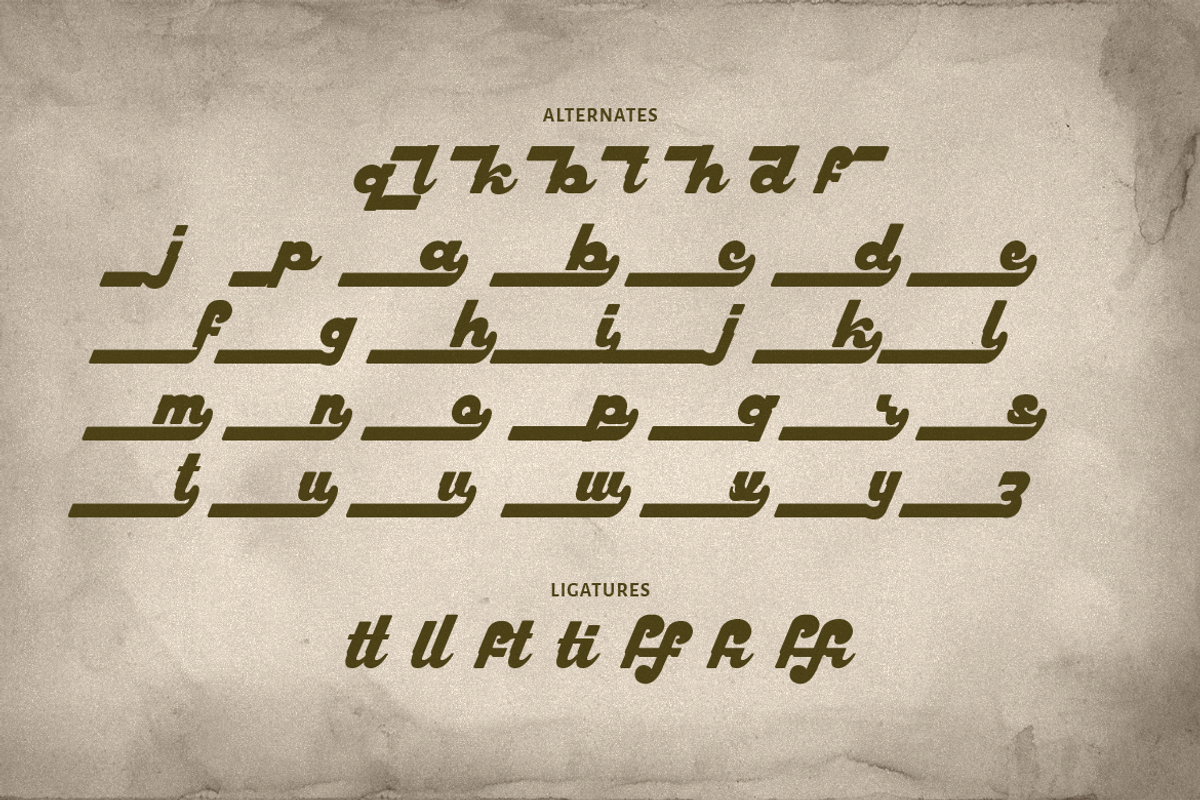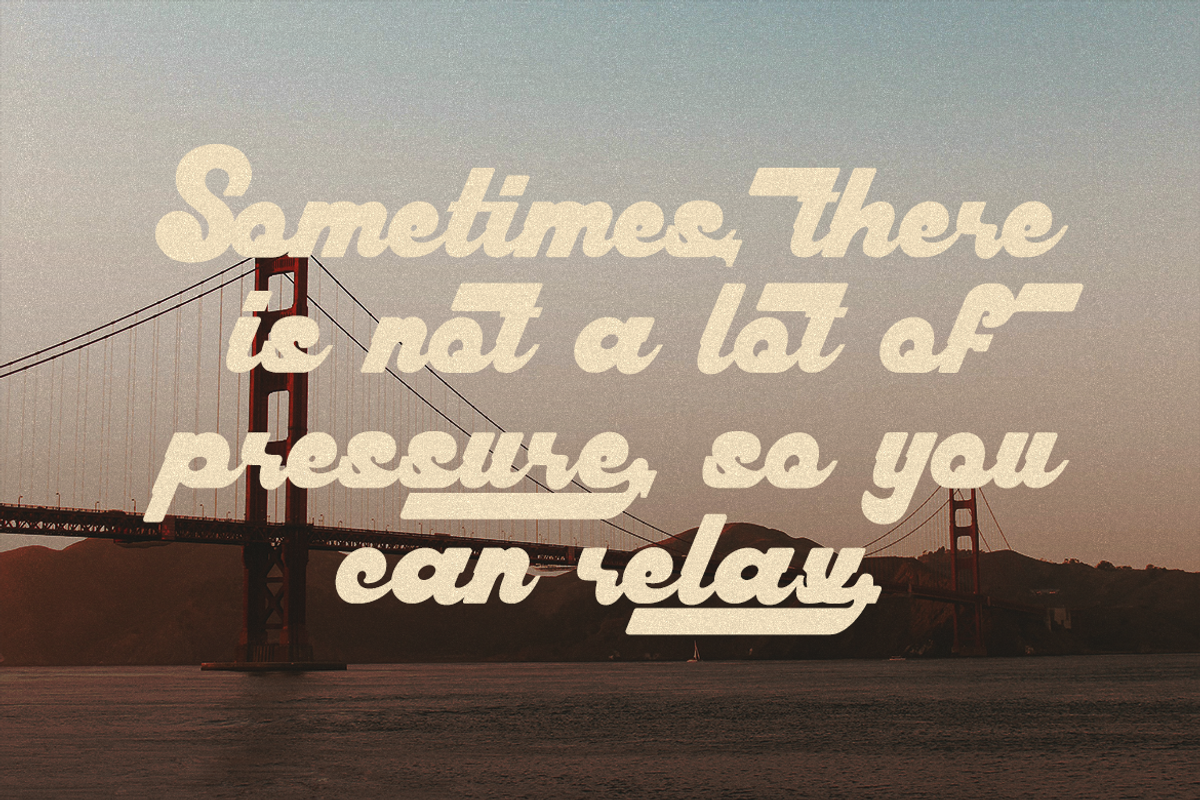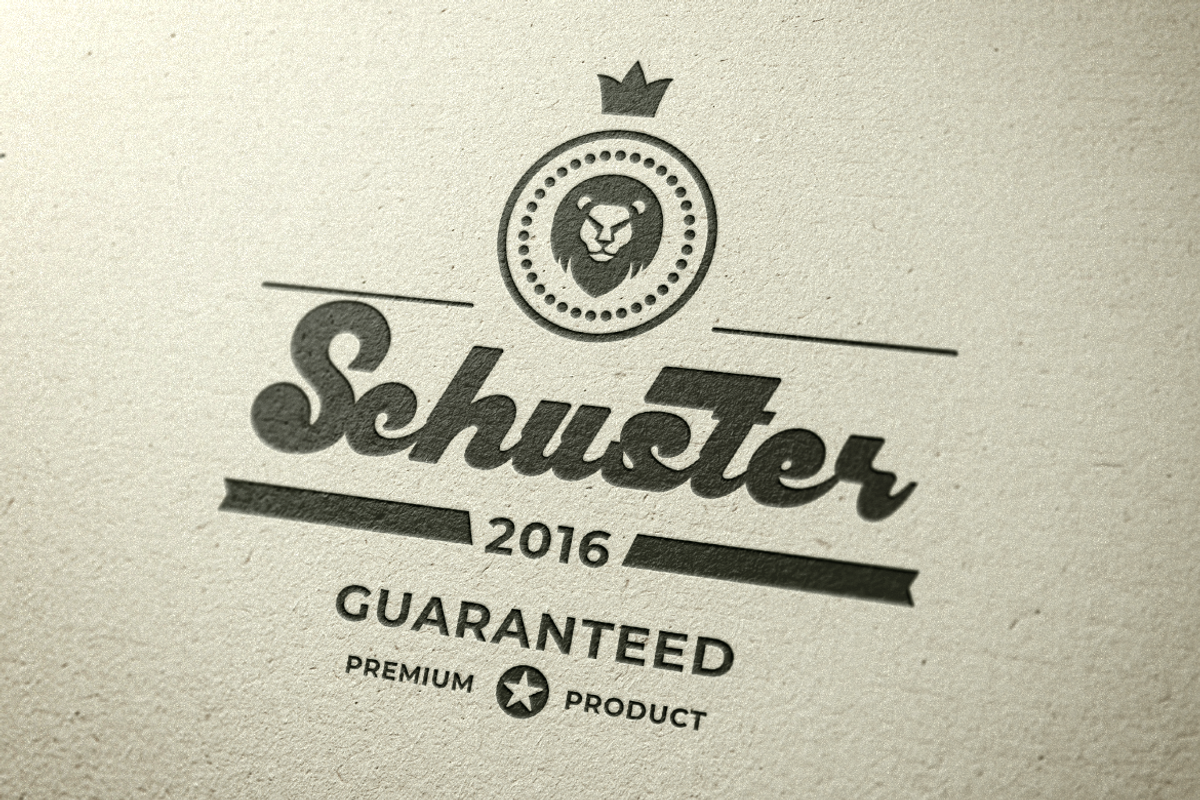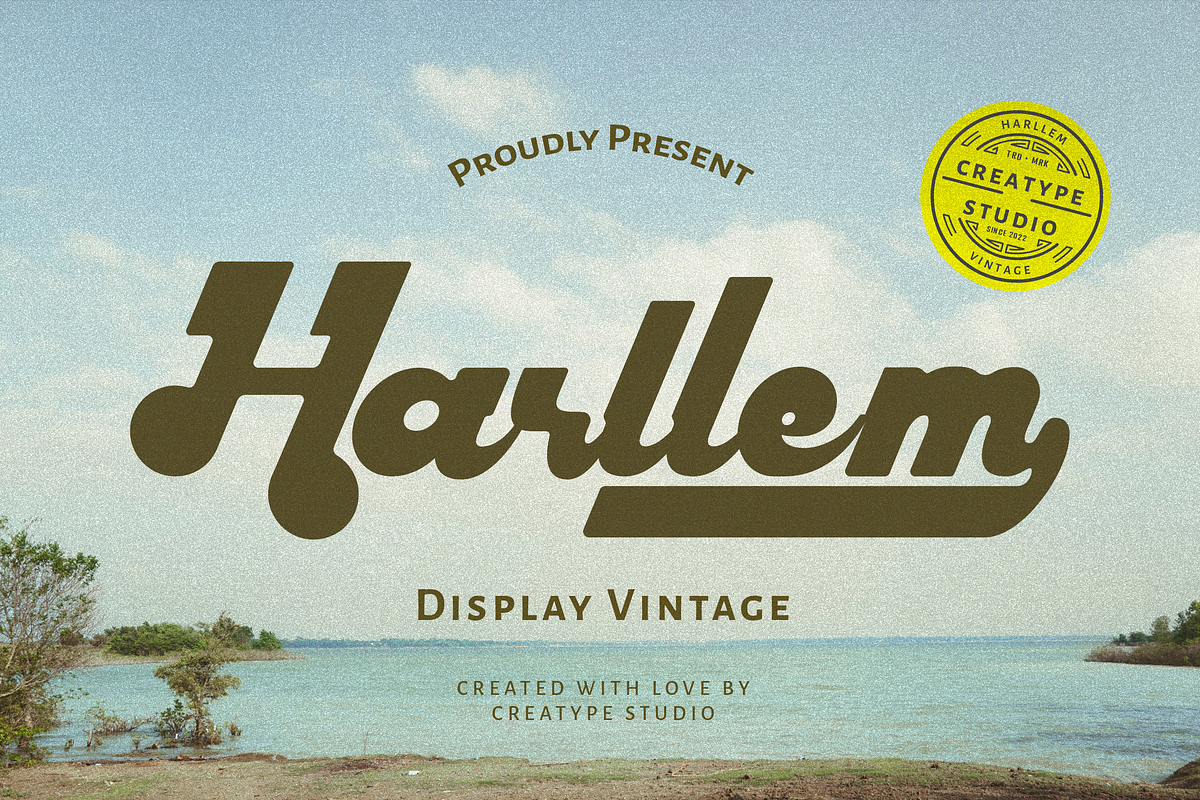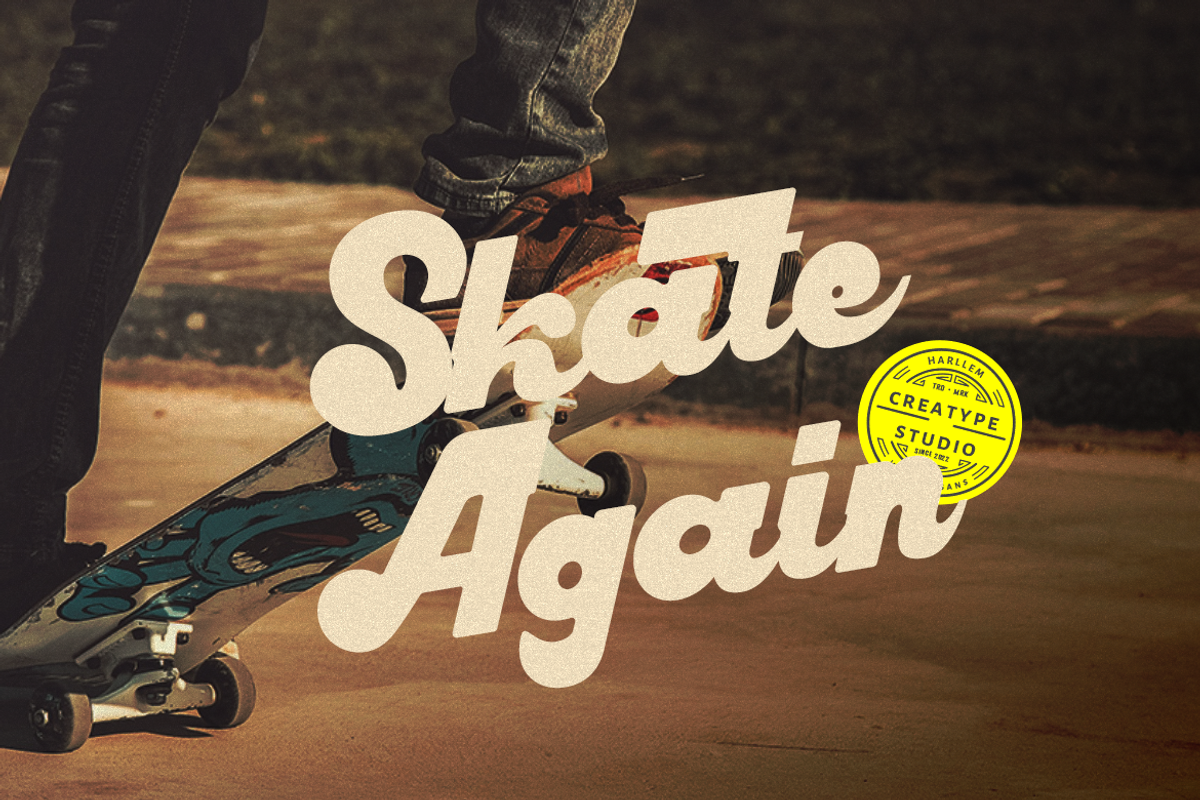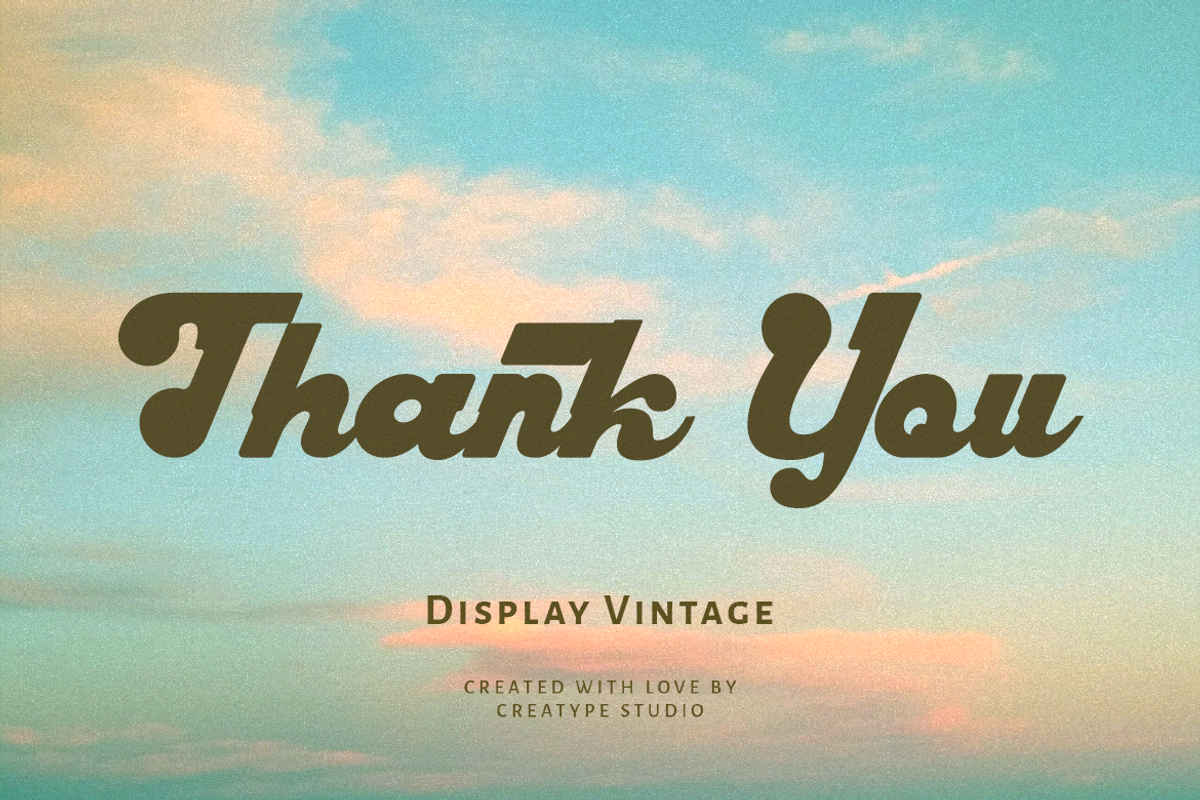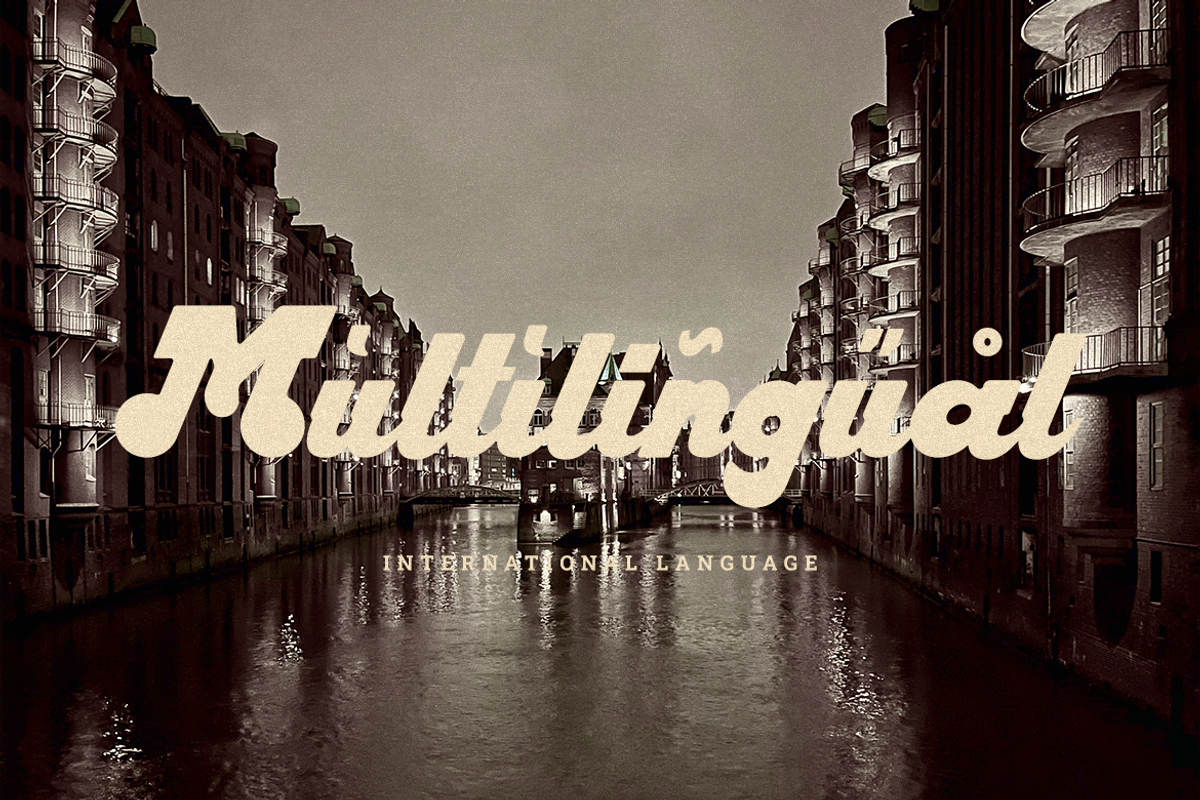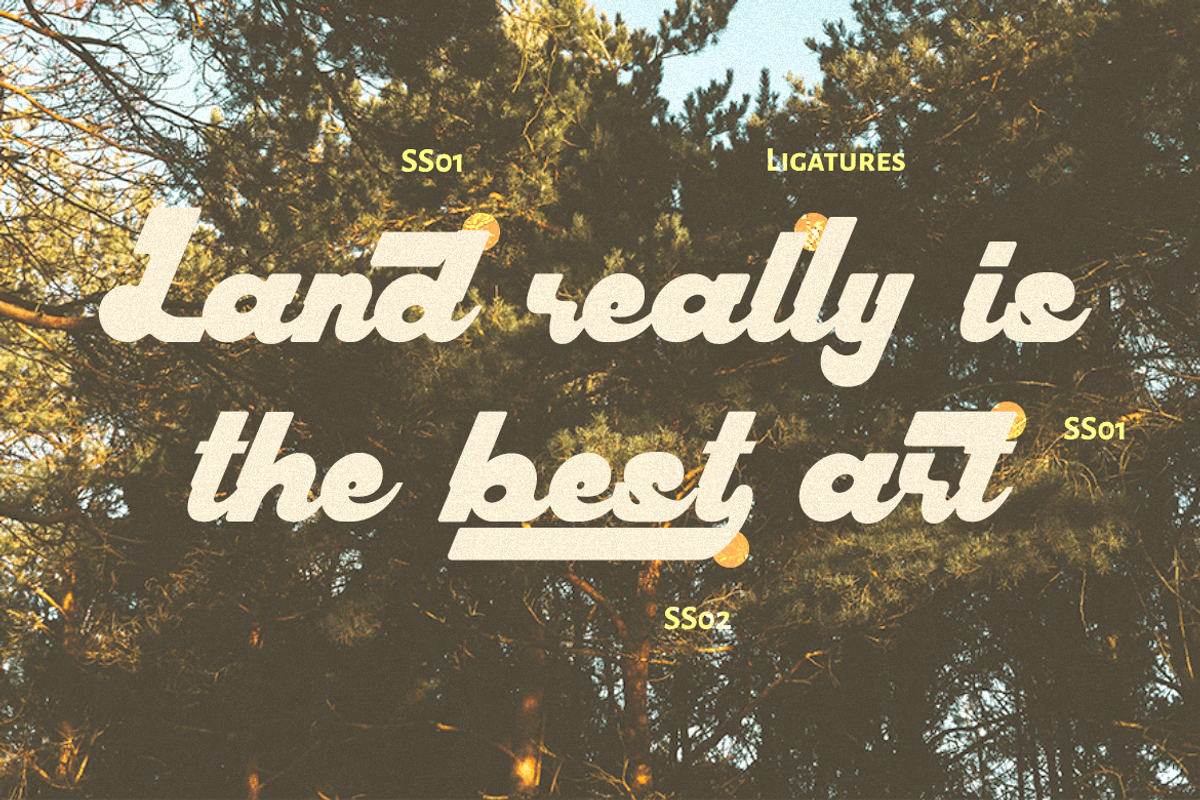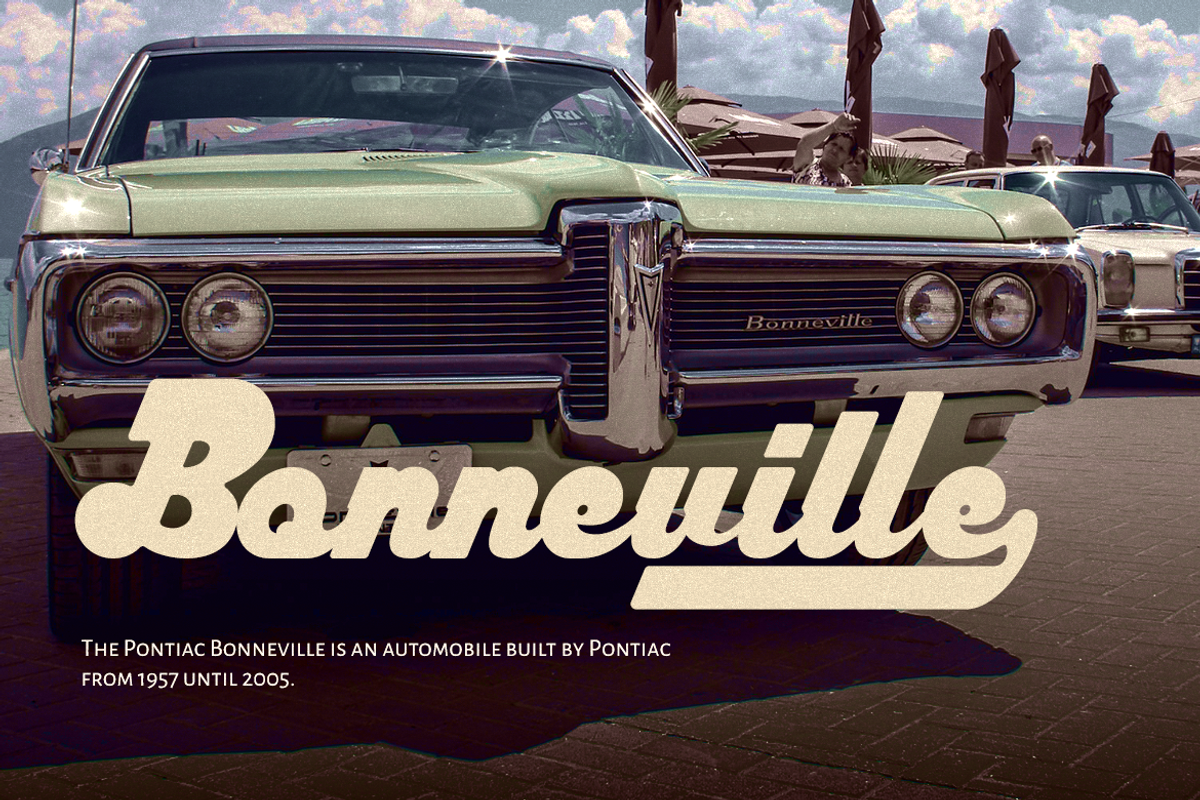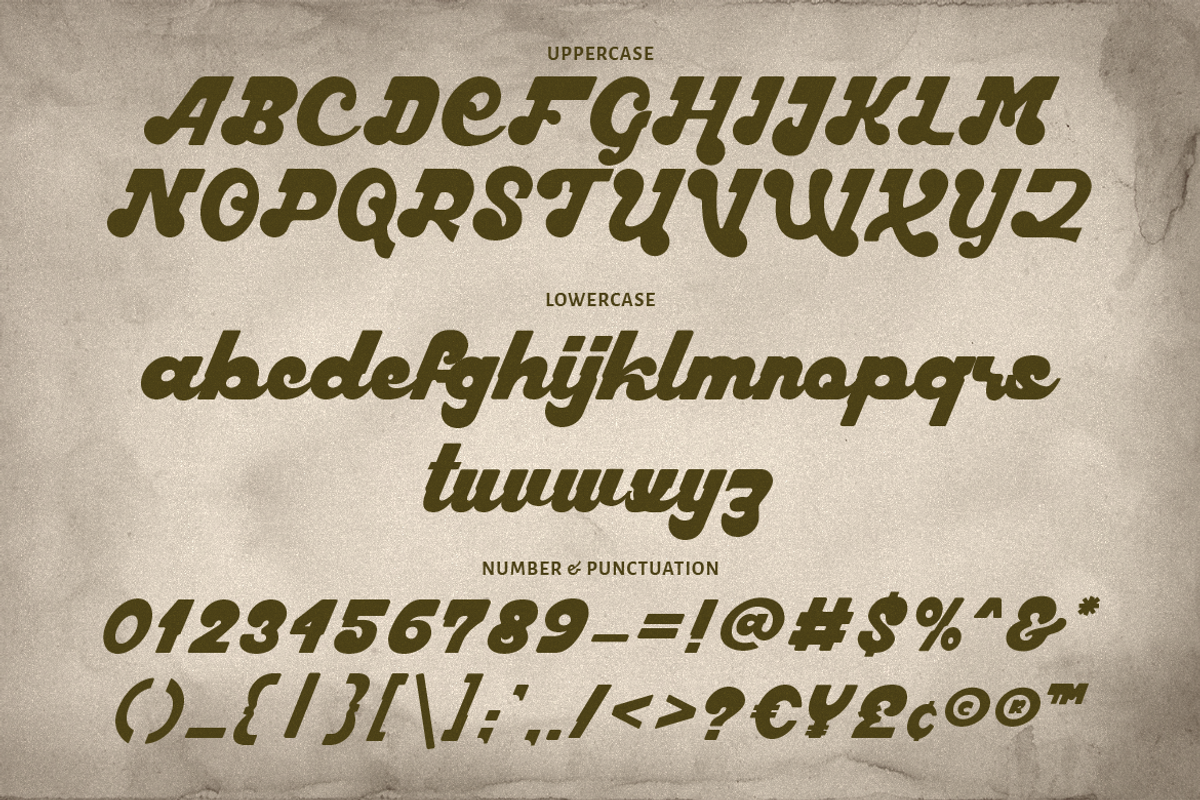
Harllem Display Vintage
The 90's trend never goes out of style. Introduce Harllem, a typeface with a 90's vibe that gives your project a classic, vintage, and fun vibe. Get the audience’s attention thru this typeface!
Harllem is perfect for branding projects, logo, wedding designs, social media posts, advertisements, product packaging, product designs, label, photography, watermark, invitation, stationery and any projects that need handwriting taste.